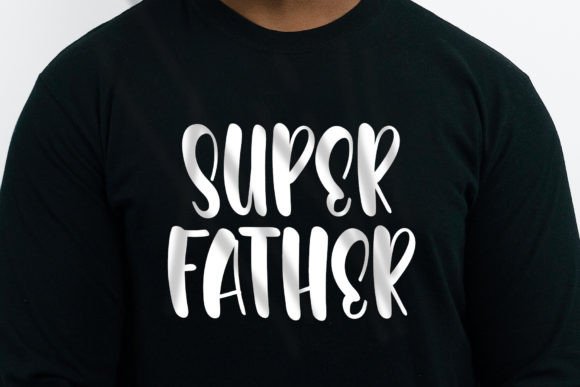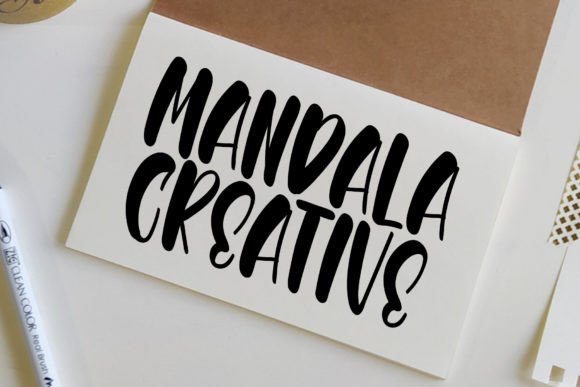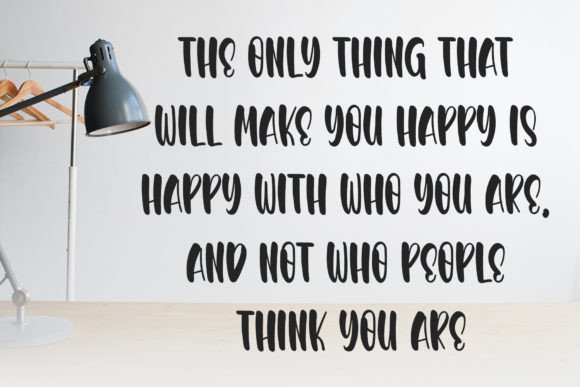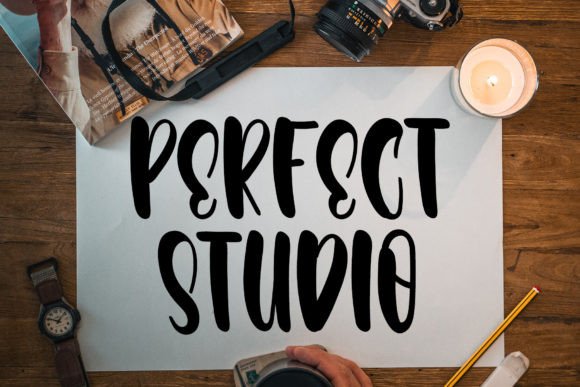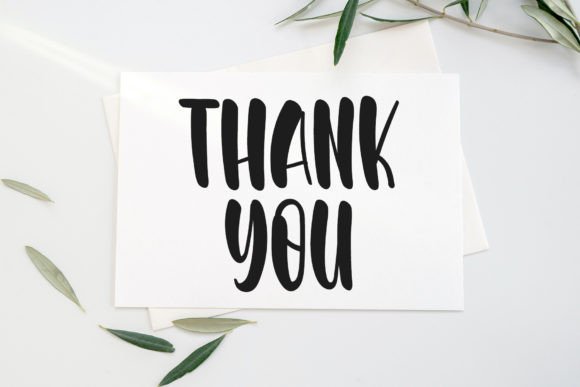
Introduction to Second Change Font
Have you ever stared at a blank canvas, waiting for inspiration to strike? For many designers, this is the moment when a single font can make all the difference. The Second Change Font is a beautiful display font that can elevate your creative project and make it truly stand out.
This high-quality font is a valuable addition to any design resource library, offering a unique and stylish touch that’s perfect for magazines and crafts. With its transparent background, it’s easy to layer and customize to suit your needs. Whether you’re working on a digital design or a physical craft project, the Second Change Font is a versatile tool that can help you achieve your creative vision.
Key Features of Second Change Font
- Features a transparent background, allowing for seamless integration into designs.
- Includes multiple font styles and weights, providing versatility for various design applications.
- Supports a wide range of resolutions and sizes, making it suitable for both web and print projects.
- Designed to be easily scalable, ensuring crisp and clear typography across different mediums.
Honest Review: Second Change Font
As a designer, I’m always on the lookout for high-quality design resources to elevate my creative projects. The Second Change Font is one such find that has caught my attention.
Here are some aspects where the Second Change Font truly shines:
- ✨ High-quality typography: The font’s clean and minimalist design makes it perfect for a wide range of applications, from branding to editorial content.
- ✨ Versatility: With its transparent background, the Second Change Font is incredibly easy to work with, allowing me to layer it over any background image or color scheme.
- ⚠️ Limited character set: The font’s character set is somewhat limited, which may not be ideal for projects that require a wide range of languages or special characters.
- ⚠️ Not suitable for small text: Due to its clean design, the font can become difficult to read when used in small text sizes.
Overall, I’m impressed with the Second Change Font’s potential as a design resource. While it has its limitations, its high-quality typography and versatility make it a great addition to any designer’s toolkit.
Second Change Font
Second Change Font is a versatile design resource ideal for creative projects. With its high quality and transparent background, it’s perfect for any design need.
Tips for Getting the Most Out of Second Change Font
For the best results, use Second Change Font on a transparent background and adjust the font size and style to suit your design needs.
Second Change Font is perfect for:
– Branding and logo design
– Digital marketing materials
– Print design projects
– Any creative project that requires a unique and high-quality font.